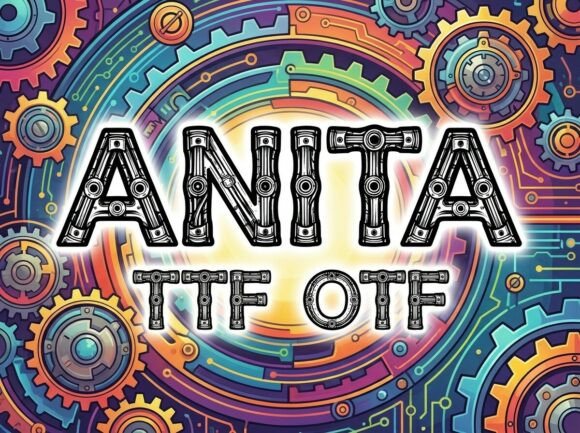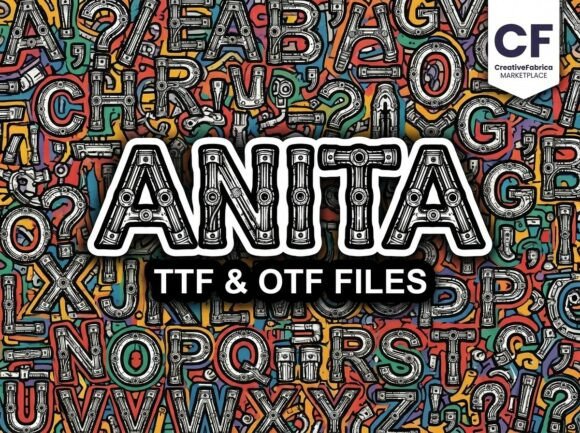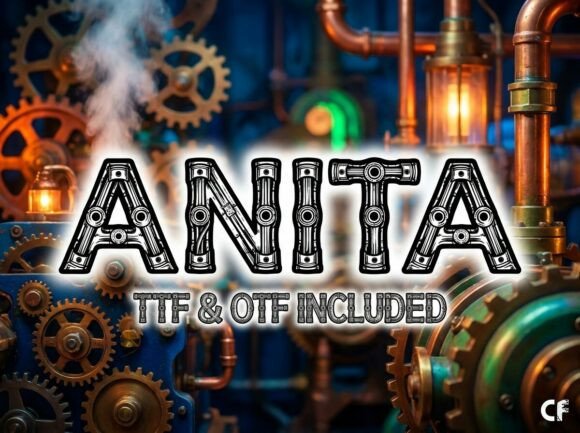
Introducing Anita Font: The Ultimate Display Font for Creative Minds
Are you tired of using the same old fonts for your creative projects? Look no further than Anita Font, a stunning decorative display font designed to make a statement. With its unique artistic elements and strong visual personality, this font is perfect for creators who want to break away from the ordinary and add a touch of elegance to their work.
What Makes Anita Font So Special?
Anita Font is a versatile font that can be used for a variety of creative projects, from bold headlines and artistic logos to creative packaging. Its professional and polished finish ensures that your work looks high-end and sophisticated, making it perfect for designers, crafters, and artists who want to take their projects to the next level.
Key Features of Anita Font
- Unique Artistic Elements: Anita Font features unique artistic elements that set it apart from other fonts. Its creative and decorative design makes it perfect for adding a touch of elegance to your projects.
- Strong Visual Personality: This font has a strong visual personality that is sure to grab attention. Its bold and eye-catching design makes it perfect for headlines, logos, and other creative projects.
- Versatile: Anita Font is versatile enough to be used for a variety of creative projects, from bold headlines and artistic logos to creative packaging.
- Professional and Polished Finish: This font has a professional and polished finish that ensures your work looks high-end and sophisticated.
Why Choose Anita Font?
There are many reasons why Anita Font is the perfect choice for creative projects. Here are a few:
- Add a Touch of Elegance: Anita Font adds a touch of elegance and sophistication to any project.
- Stand Out from the Crowd: This font is designed to grab attention and make your project stand out from the crowd.
- Perfect for Creative Projects: Anita Font is perfect for a variety of creative projects, from bold headlines and artistic logos to creative packaging.
- Professional and Polished Finish: This font has a professional and polished finish that ensures your work looks high-end and sophisticated.
Tips for Using Anita Font
- Use for Headlines and Logos: Anita Font is perfect for headlines and logos where you want to make a statement.
- Experiment with Different Sizes: Experiment with different sizes to find the perfect fit for your project.
- Pair with Other Fonts: Pair Anita Font with other fonts to create a unique and eye-catching design.
Anita Font is a stunning decorative display font that is perfect for creative minds. With its unique artistic elements, strong visual personality, and professional and polished finish, this font is sure to take your projects to the next level. Whether you’re a designer, crafter, or artist, Anita Font is the perfect choice for adding a touch of elegance and sophistication to your work.